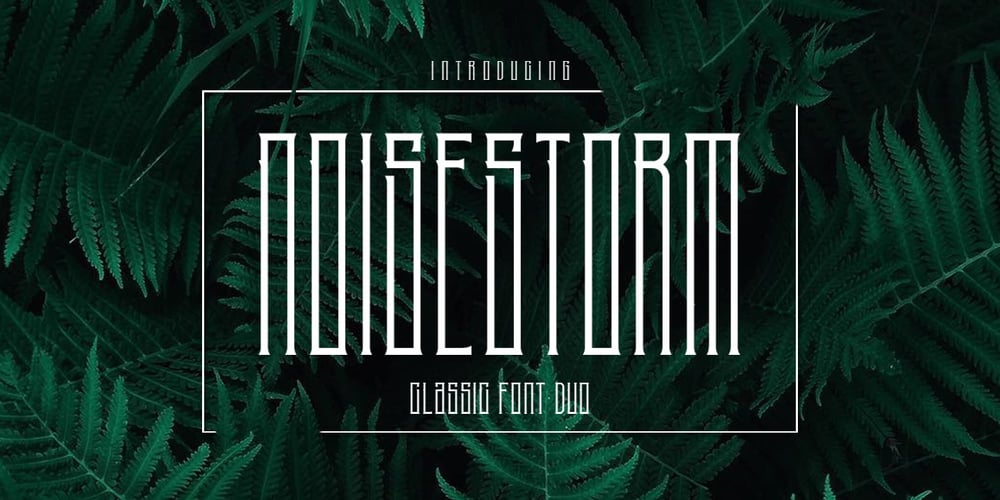
Noise Storm
Noise Storm font
Noise Storm Font Family was designed by Deni Dessastra and published by the-sastra. Noise Storm contains 4 styles and family package options. This NoiseStorm font is inspired by Classic Retro and Vintage nature.NoiseStorm font is perfect for badges, branding, labels, apparel, headlines, signage, logo, quote, apparel and other creative applications.For any help regarding this file, please feel free to contact me.Thank you